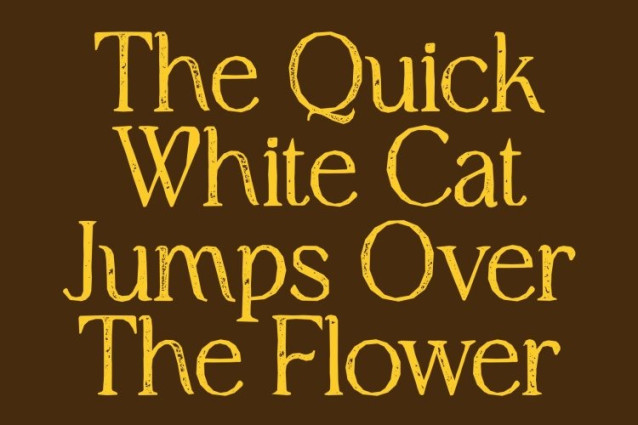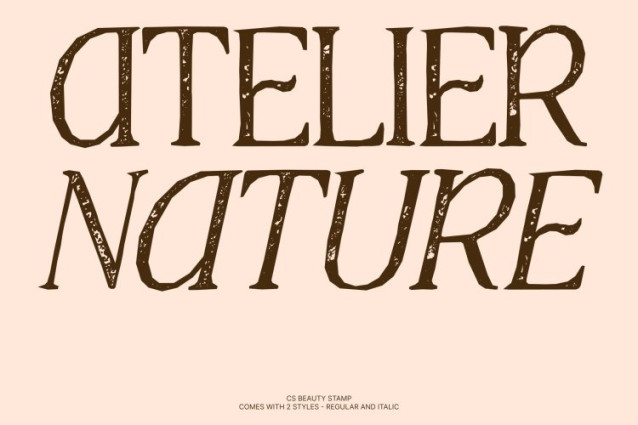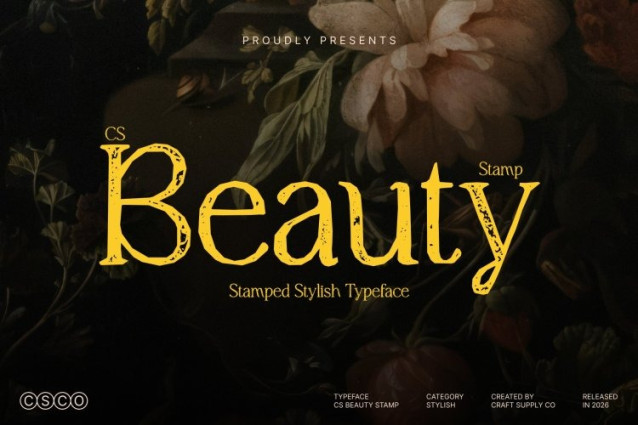
CS Beauty Stamp Font
CS Beauty Stamp Font This is a modern serif font that blends sleek minimalism with refined elegance, now enriched by a subtle stamp texture. Its clean structure and contemporary proportions remain intact, while the stamped effect introduces gentle imperfections that give the font a tactile, handcrafted feel. The result is a timeless yet expressive appearance that feels both modern and artistically warm.
Graceful Lines with Organic, Textured Detail
Defined by thin strokes and delicate serif accents, exudes poise and sophistication. The added stamp texture softens its precision, creating visual depth and a slightly worn charm without overwhelming the design. This balance makes the font feel elegant yet approachable perfect for clean layouts that still want character.
High-End Aesthetic with Vintage Warmth
Whether used in logos, headlines, invitations, or website headers, delivers a high-end look with added emotional depth. The stamp effect brings a sense of authenticity and craftsmanship, enhancing visual harmony while reinforcing confidence and clarity.
Versatile for Modern, Elegant, and Artistic Projects
From minimalist branding to upscale print and editorial design, this font adapts effortlessly across creative applications. Its modern serif foundation ensures reliability, while the stamped texture elevates the font with elegance, charm, and understated sophistication perfect for designers seeking beauty with character.